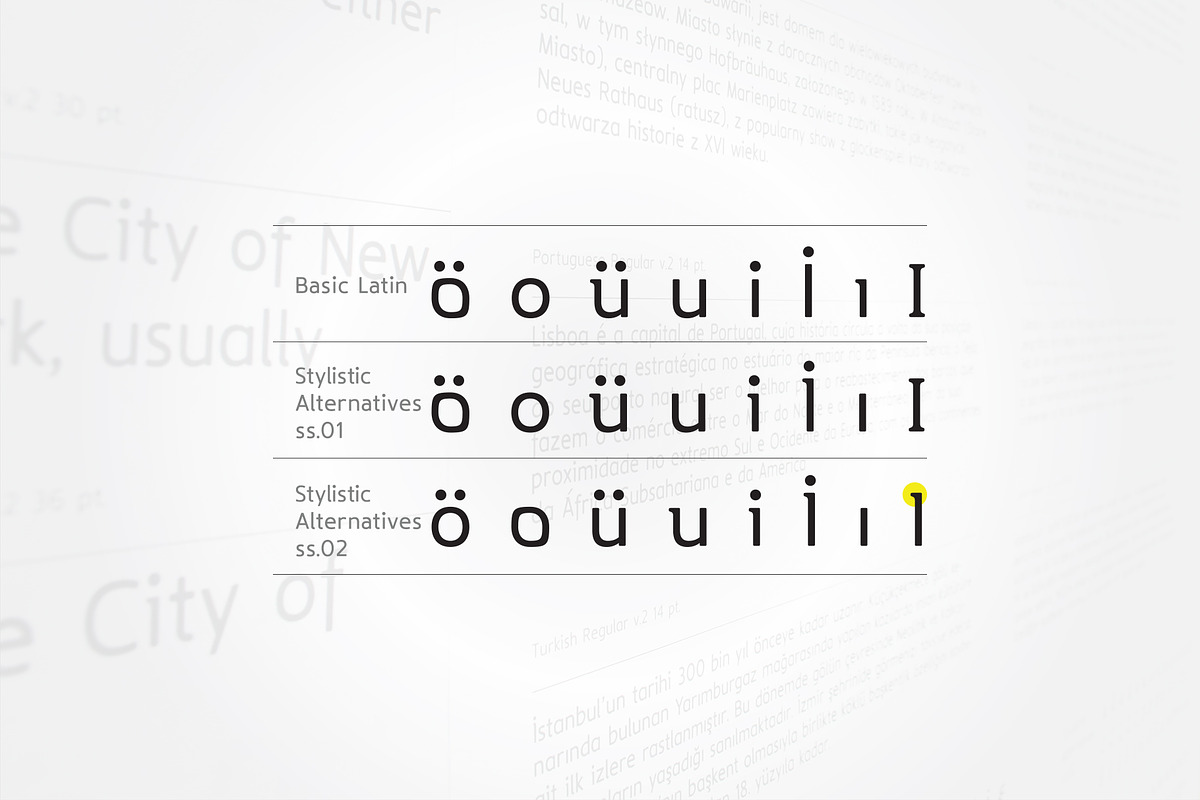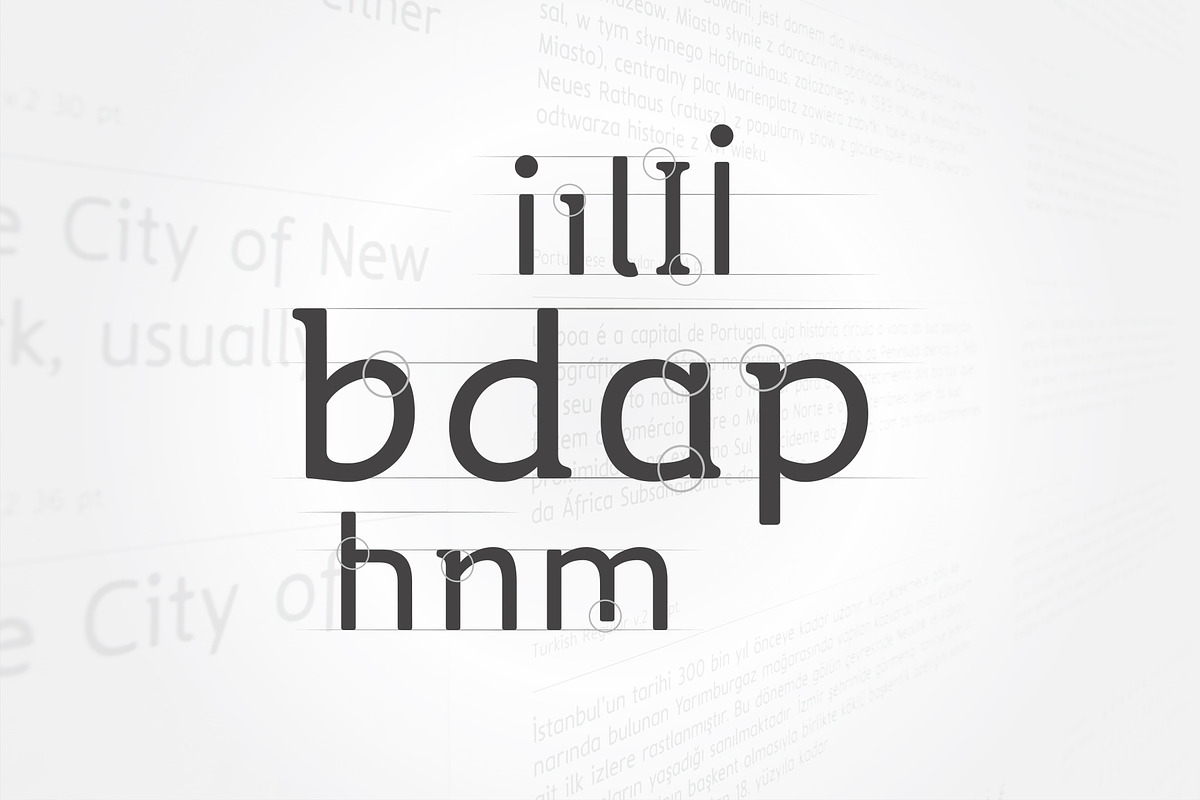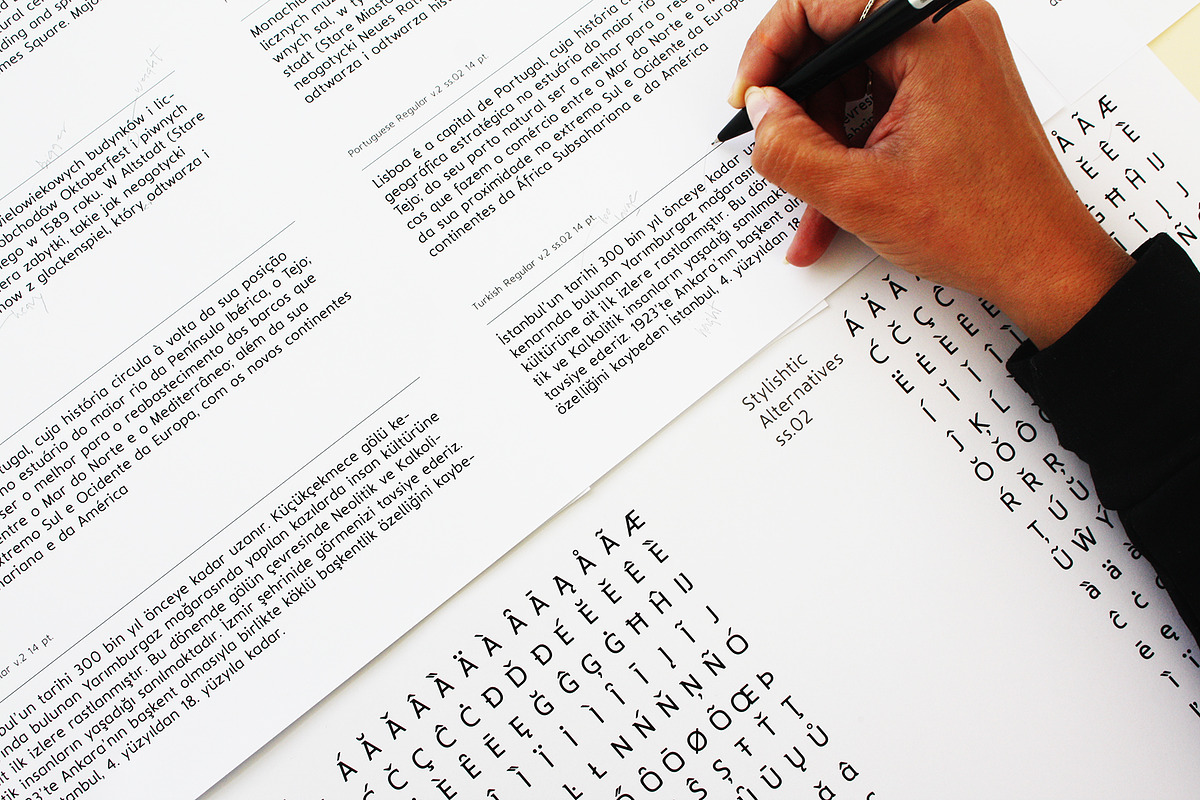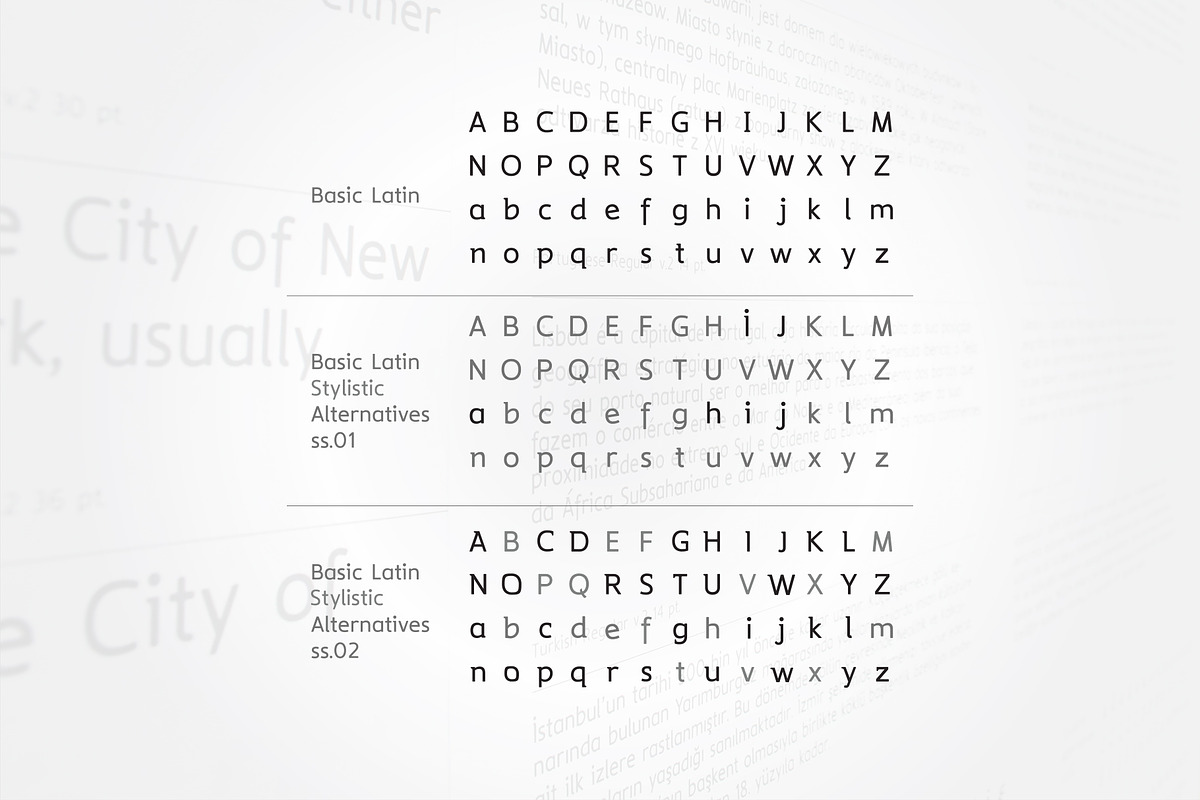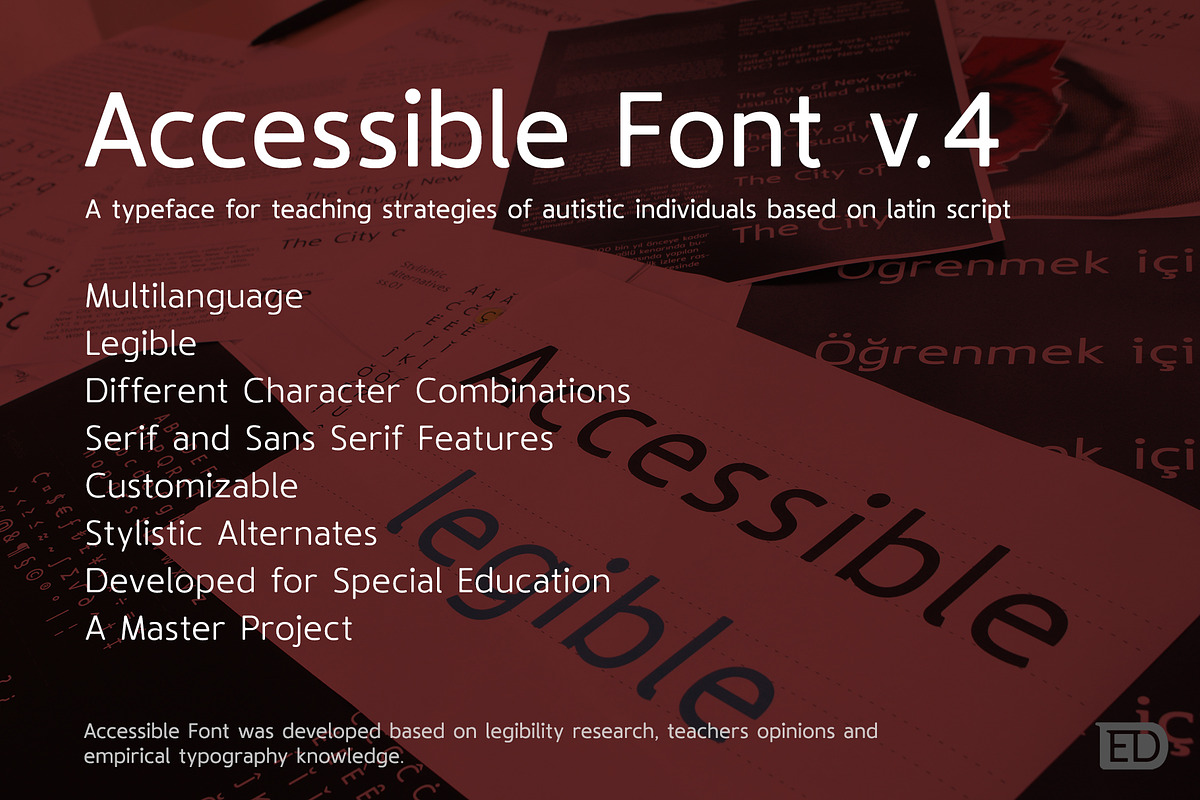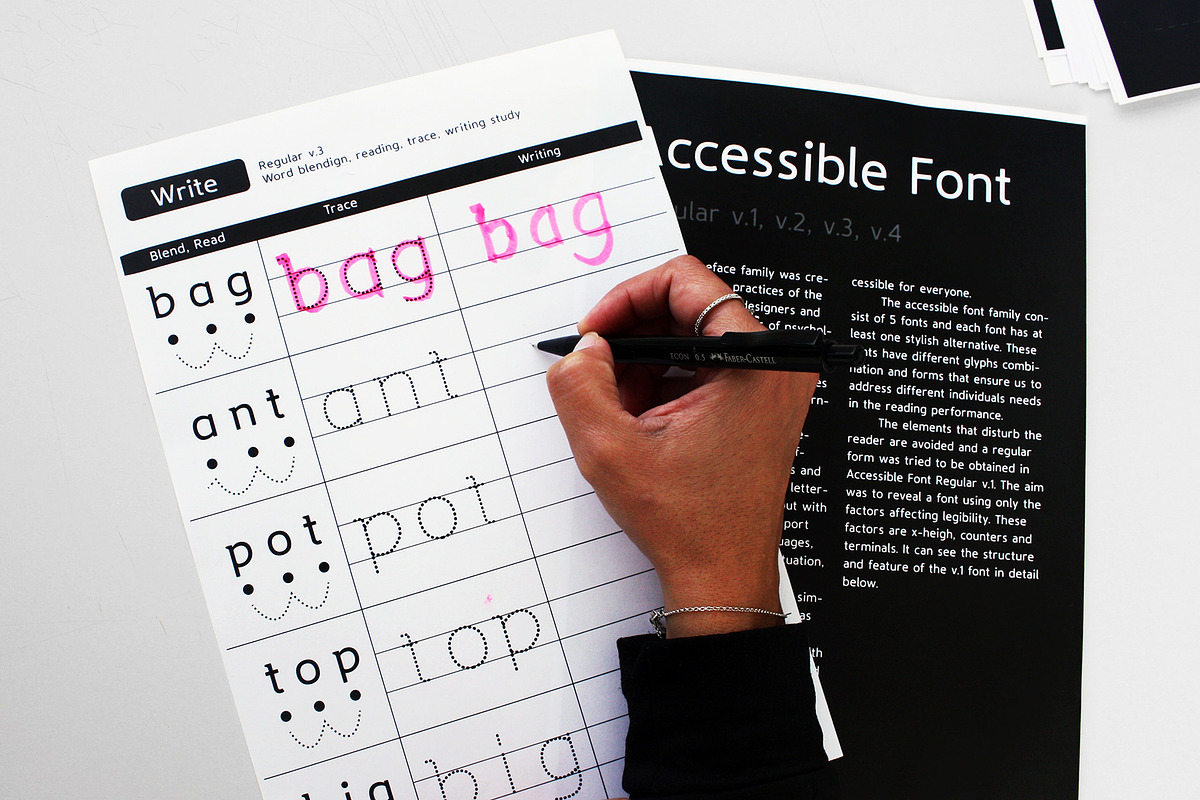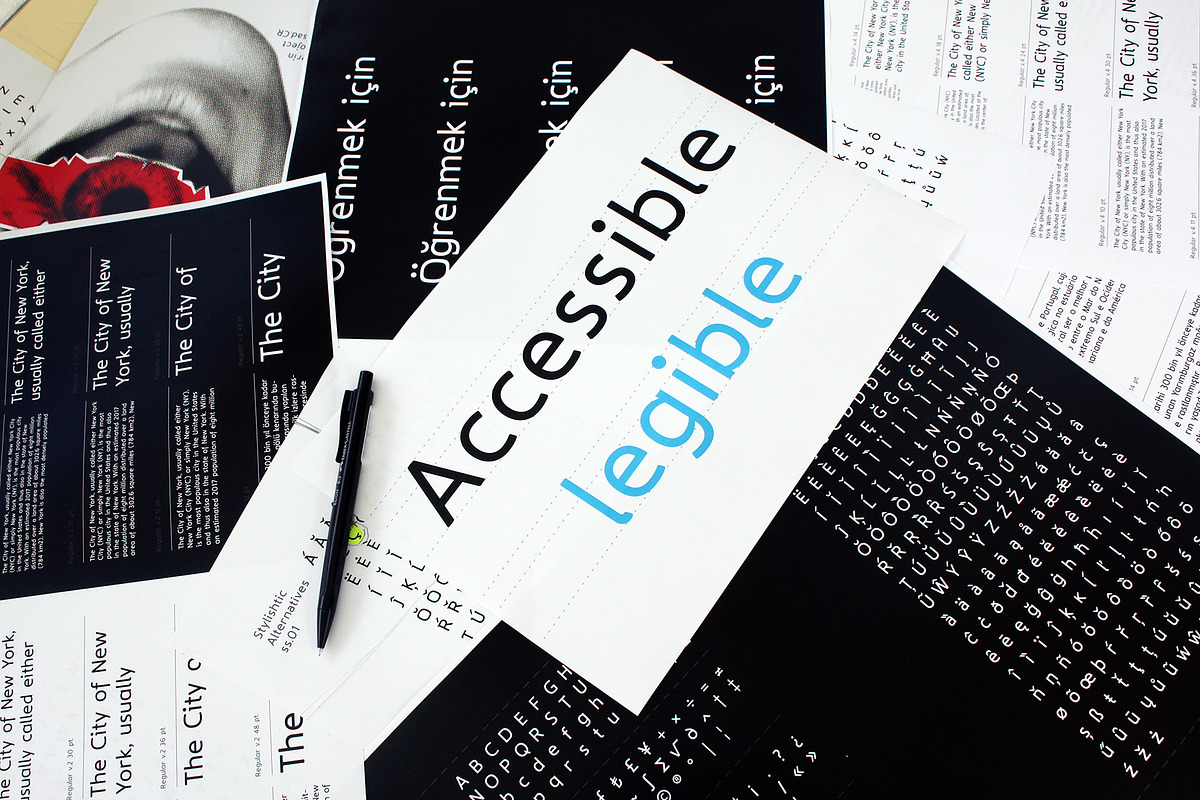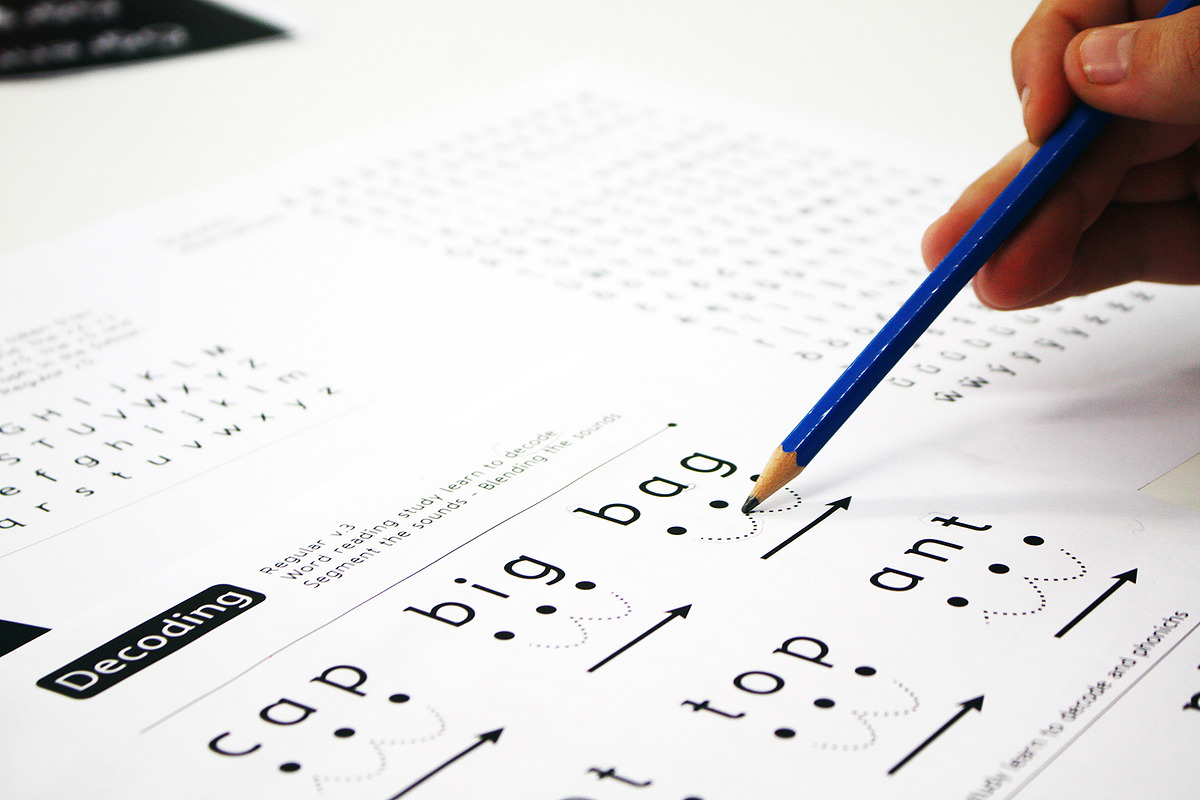
Accessible Font Version 4
Accessible Font is a typeface that occurred with the results of the research project. This study conducted at the University of Esad.Cr. It was investigated the reading difficulties of individuals with autism based on learning difficulties. Design and research process of the project took three years. Accessible font was developed to use in the reading education of individuals with autism and learning disabilities. Accessible font is based on the opinions of special education teachers, legibility research and interviews. Accessible Font has a legible and multilanguage structure with 5 versions eight sets six weight. It has customisation support, so teachers can use different fonts according to the variable learning to read difficulties on individuals. In this way, teachers can make effective teaching according to individuals problem in reading education.
The research consists from a literature review on autism, interview with special education teachers (Turkey) and survey study (Turkey, England, USA). In the study, it was seen that reading problems of individuals with autism don't characterize with autistic symptomology nor dyslexia. It was concluded their reading profile is delayed impairment reading profile and it may due to learning disabilities. For this reason, the font family was developed not only for individuals with autism but also for individuals who have difficulty in learning to read. Accessible fon was developed with various versions and sets to meet different individuals needs in learning to read.
The design process is based on the opinions of special education teachers, reading errors and readability research. as a result of the design process, Accessible font came up with five versions, eight sets and six weights(v.1, v.5). In this context, the typeface design allows the teachers to change the font design according to the mistakes made by the student in reading education and their needs in learning to letter or words. version 1 and version 5 are prepared for long texts as legible structure. Version 2, 3 and 4 are designed to reduce students' reading errors and help to learn phonics. Accessible font design is unique no font has been prepared before according to these features and the ways. The version 2, 3 and 4 has been prepared by going beyond the conventional type design. In order to achieve this, the most common letterforms pairs that cause misreadings were identified by research, and new features (serif or stimuli) were added or redesign again to reduce to similarities between similar letterforms (as an example b-d, p-q-g, n-m, I-l-i,). The serifs that applied on the letterforms have placed to different directions than each other in order to identify letterforms structure easily. Each version has unique features please check the version features to understand the differences in the design process.
In the regular v.4 font design, it was followed an approach to reduce the similarities as much as possible between characters and maintain harmony. The main feature of v.4 ıis that there are more elements that can disturb the reader than v.3. On this design, while some extended Latin characters have serifs, some characters have not serif. So, in the design of v.2, all the extended Latin characters come with serif, while in v.4 design they only some characters (s-ş,g-ğ,c-ç,i-ı,ü-u,o-ö) come with serif. In v.4 font, the characters ‘a’, ‘b’, ‘e’, ‘h’, ‘n’, and ‘p’ were designed in a different shape from the v.3. In this way, care was taken to increase the differences between the letterforms than the v.3. In this way, the similarities of similar letters were reduced and the peculiarities of the structure of letter design were revealed. Accessible Font is compatible for web and printing. The accessible typeface family was created based on the practices of the educators, typeface designers and researchers in the fields of psychology. The aim of the typeface study is to find solutions to the problems of the individuals who have difficulties in reading and the process of learning to read.
Accessible Font was designed with a large x-height, large dotes, diacritics characters, legible structure, large letter-spacing (side bearings), different letterform combinations and reducing similarities between letterforms. The Accessible stand out with extended characters that support almost 200 Latin-based languages, covering math symbols, punctuation, and currencies.
Accessible font family is a simple and harmonious appearance as well as it offers great customization support to the pedagogues with differences in letterform design and stylistic combinations. As a result, a typeface is appeared to meet the individual requirements in which the teachers can change the character design according to students needs. This makes the Accessible font accessible for everyone.
ACCESSIBLE FONT DEVELOPED TO ENSURE EASILY LEARN TO READ AND READING WITHOUT MISREADINGS FOR INDIVIDUALS WITH AUTISM AND LEARNING DISABILITY.
Accessible Font version 4:
- Version 4 In the regular v.4 font design, it was followed an approach to reduce the similarities as much as possible between characters and
- On this design, while some extended Latin characters have serifs, some characters have not serif.
- So, in the design of v.2, all the extended Latin characters come with serif, while in v.4 design they only some characters (s-ş,g-ğ,c-ç,i-ı,
- In v.4 font, the characters ‘a’, ‘b’, ‘e’, ‘h’, ‘n’, and ‘p’ were designed in a different shape from the v.3.
- Accessible Font was designed with a large x-height, large dotes, diacritics characters, legible structure, large letter-spacing (side bearin
- The Accessible stand out with extended characters that support almost 200 Latin-based languages, covering math symbols, punctuation, and cur
- Accessible Font Regular v.4